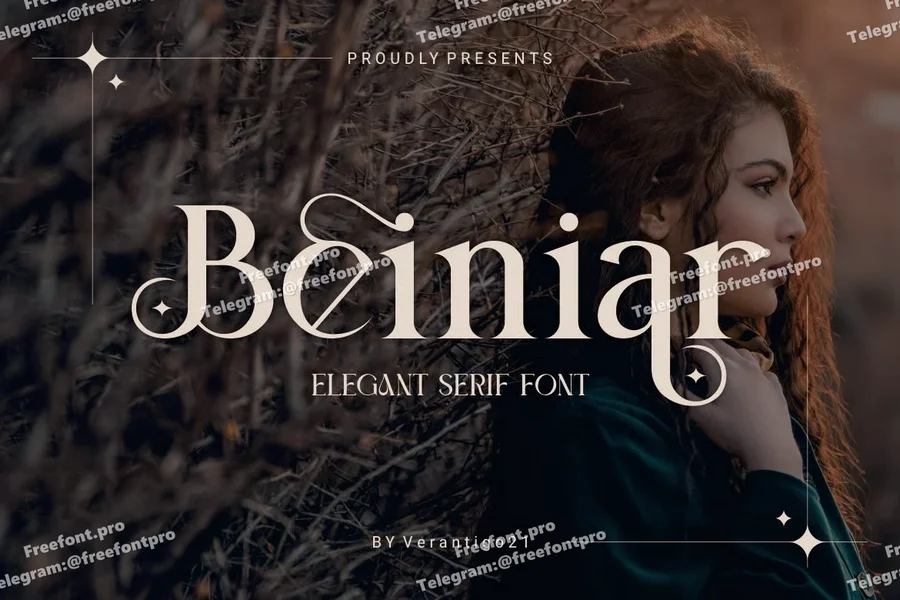
Beiniar
Introducing Beiniar, a bold and modern condensed typeface. With its strong, impactful lines and unique cut details, Beiniar is perfect for creating eye-catching headlines, logos, and posters. Its bold, blocky letters convey strength and confidence, making it ideal for projects that need to stand out and leave a lasting impression. Whether you’re designing for advertising, fashion, or creative branding, Beiniar robust, condensed style provides a versatile solution for enhancing visual impact.
Numeral & Punctuation